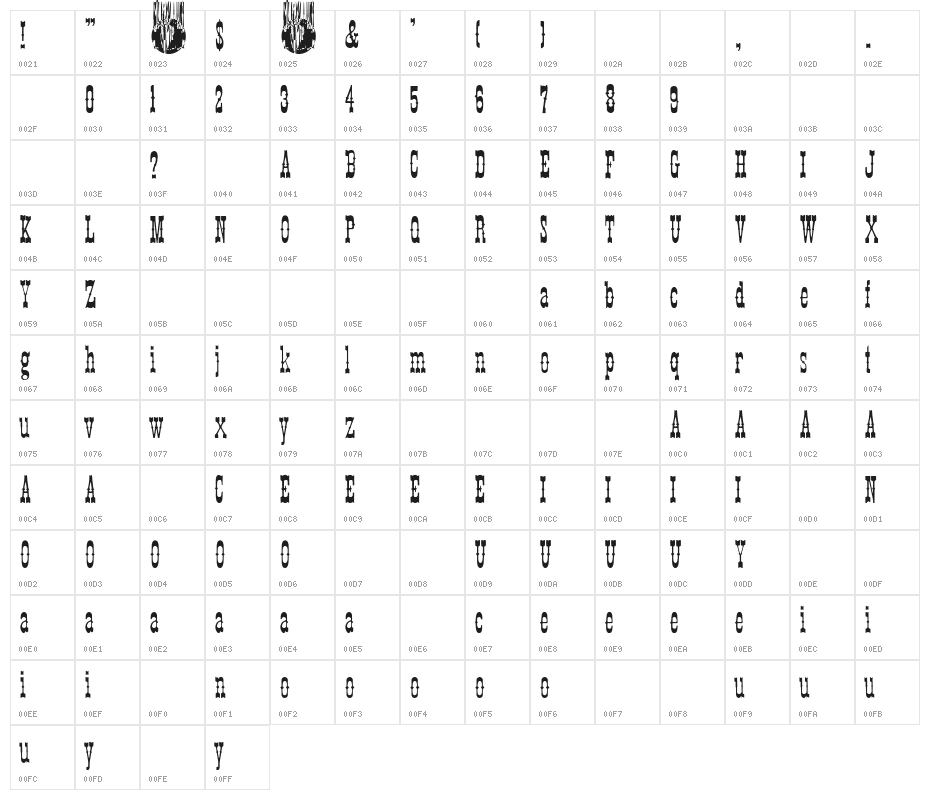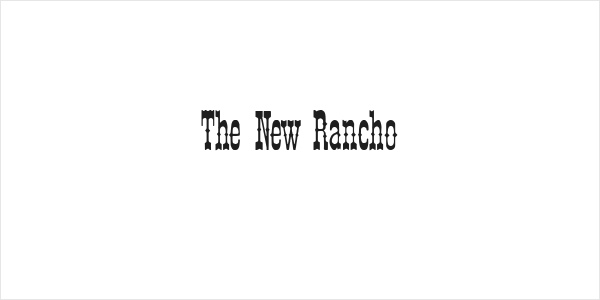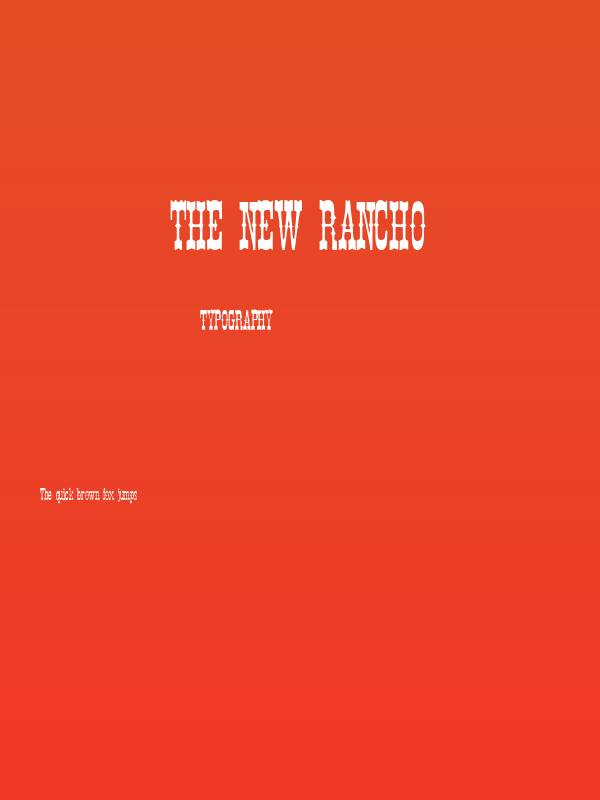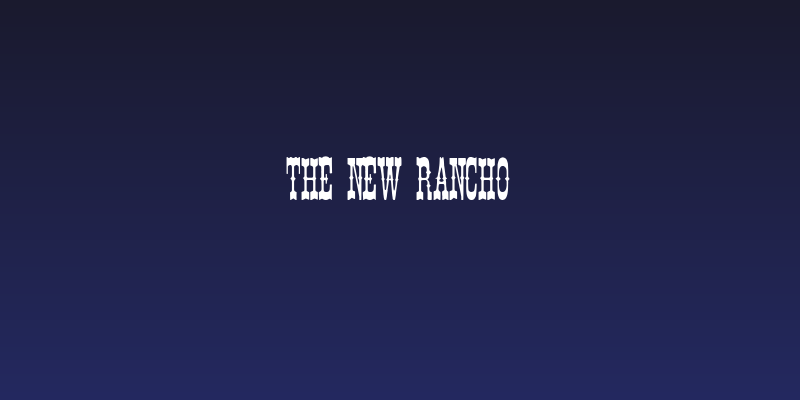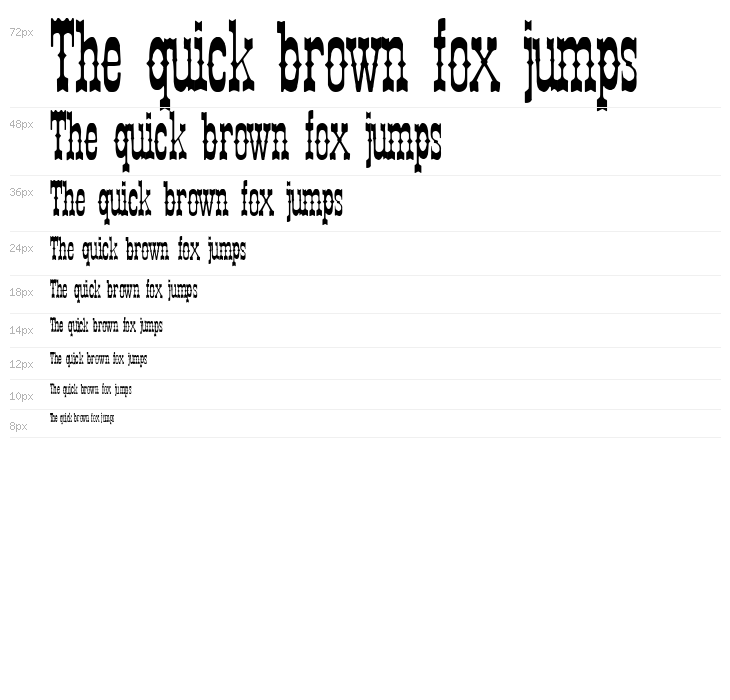
The New Rancho Font
The New Rancho Description
A bold, decorative display font with heavy slab serifs and a distinctly Western, vintage appearance. The letterforms are tall with pronounced vertical stress, irregular edges, and a slightly condensed structure, evoking old wanted posters or circus themes.
| Width | Condensed |
| Overall Style | Vintage, Decorative, Western |
| Use Case | Headlines, Posters, Logos, Themed Event Materials |
| Proposed Projects | Posters, signage, branding for themed events, vintage packaging, Western or circus-inspired graphics. |